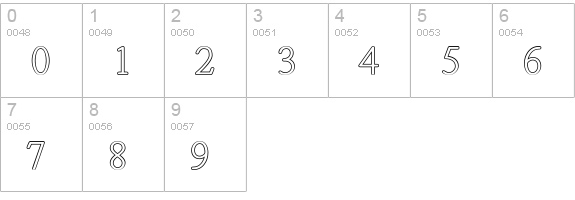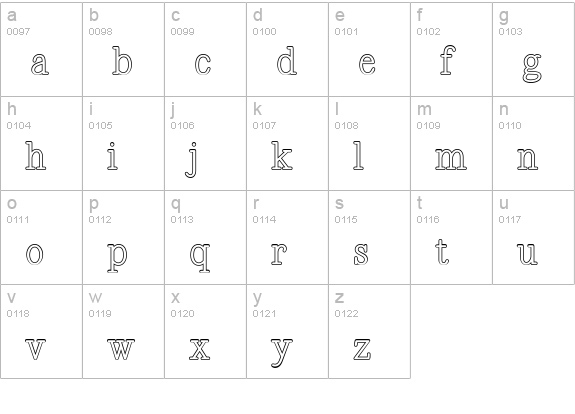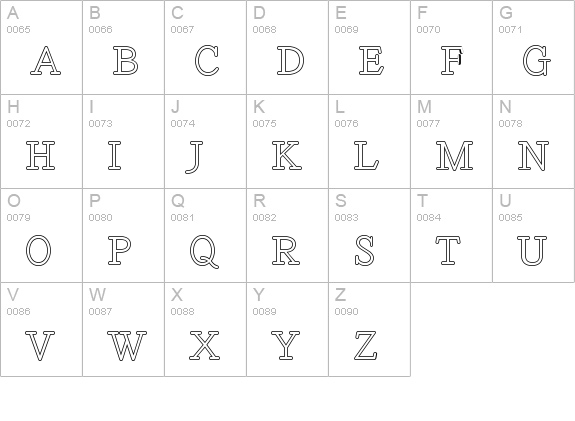
Revelation BTN Out is an extraordinary and captivating font that is bound to make a lasting impression. With its unique and eye-catching design, this font effortlessly combines elegance and boldness, making it perfect for a wide range of design projects. The beauty of Revelation BTN Out lies in its intricate details, which add an element of sophistication to any text it adorns. Each letter is carefully crafted with precision, creating a sense of depth and dimension that is both visually striking and visually pleasing. What sets Revelation BTN Out apart from other fonts is not just its stunning aesthetics, but also the fact that it is available for free. Yes, you read that right! This incredible font can be freely downloaded at FontsMarket.com, making it accessible to designers and creatives of all levels. Whether you're working on a logo, branding materials, website design, or any other creative project, Revelation BTN Out is a font that will elevate your work to new heights. Its versatility allows it to be used in various contexts, from sleek and modern to vintage and nostalgic. So why settle for ordinary when you can have extraordinary? Download Revelation BTN Out for free at FontsMarket.com and unleash your creativity with this remarkable font. Let Revelation BTN Out be the key to unlocking a world of design possibilities and making your projects truly stand out.